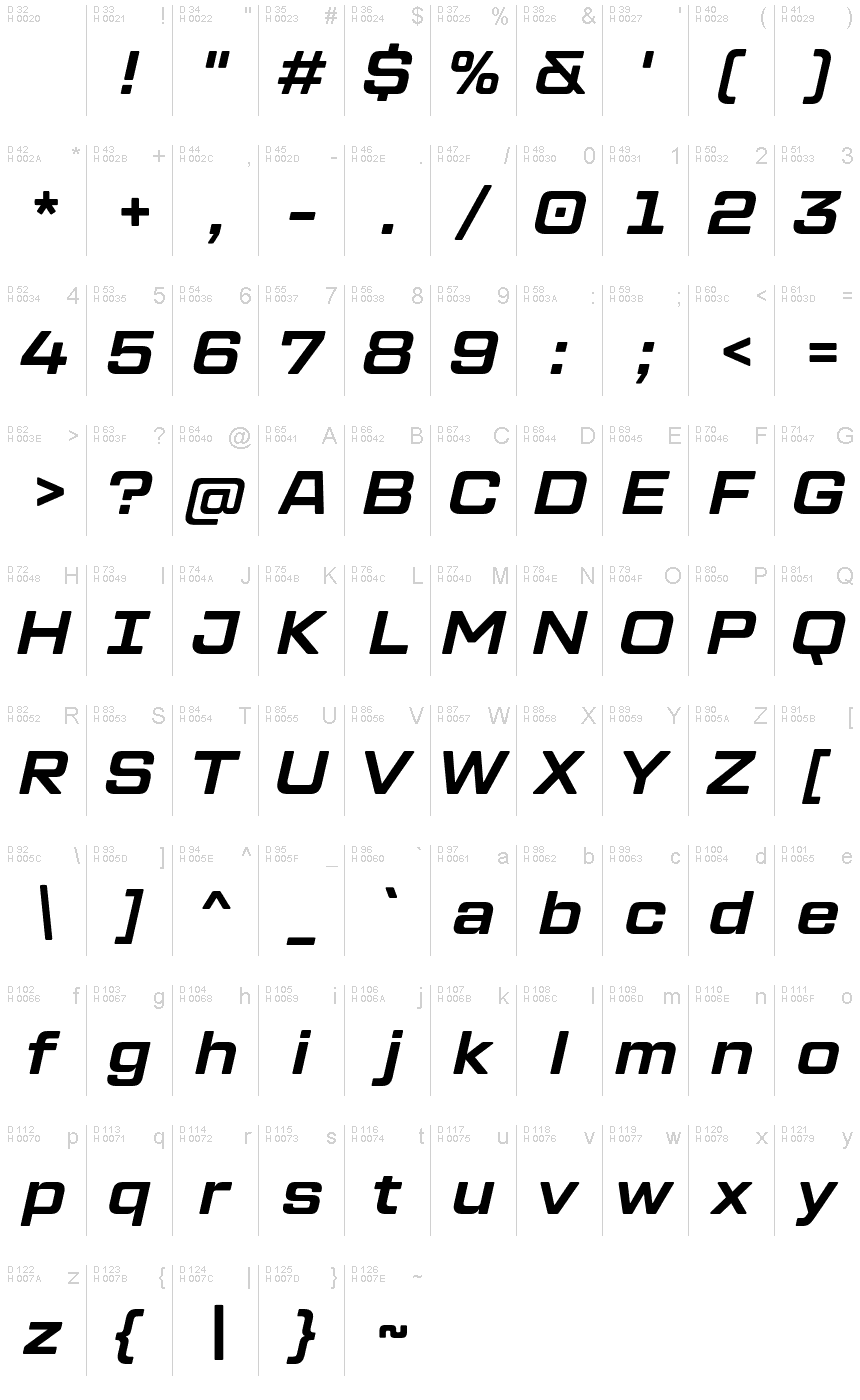
TT Lakes Neue Trl Ext Bd It
TT Lakes Neue Ext Bd It is a bold and contemporary sans-serif font designed by the TypeType Foundry. With its expanded width and semi-bold weight, this font is perfect for creating impactful headlines, titles, and logos that demand attention. Its clean lines and modern feel make it suitable for a wide range of projects, including branding materials, web design, packaging design, and even editorial layouts. Whether you're looking to create a sleek corporate identity or make a bold statement with your designs, TT Lakes Neue Ext Bd It is an excellent choice that will help you stand out from the crowd.